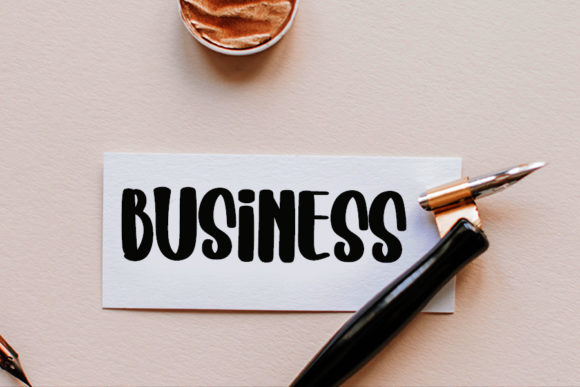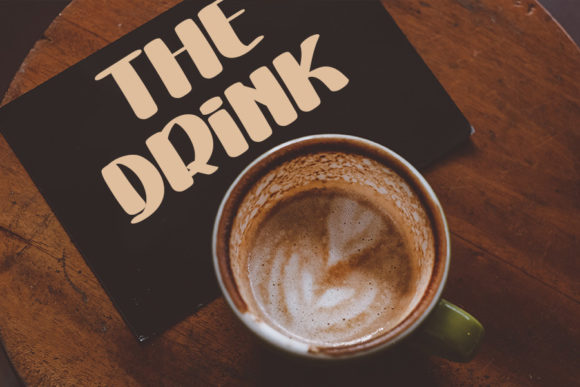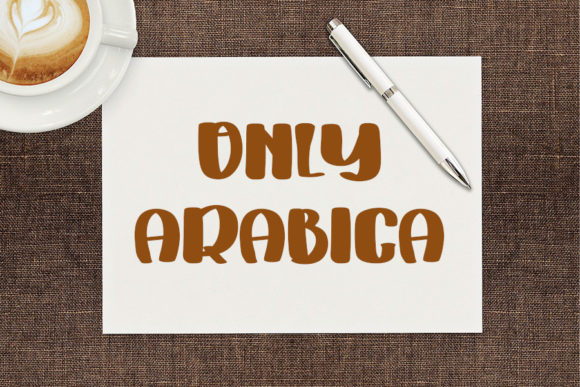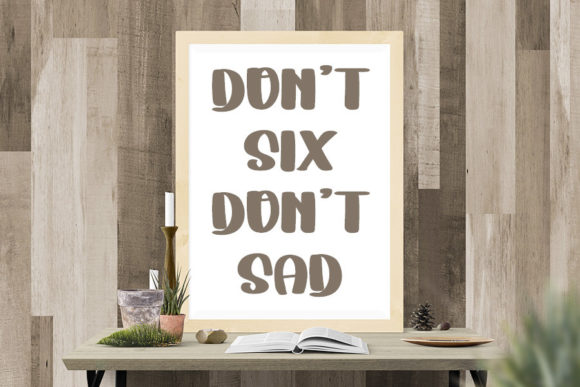
Introducing Daily Love Font: The Perfect Blend of Boldness and Friendliness
Are you a designer, crafter, or digital artist looking for a font that can add a touch of trendiness to your projects? Look no further than Daily Love Font, a bold and friendly display font that’s perfect for a variety of creative applications. In this article, we’ll take a closer look at what makes Daily Love Font so special and how you can use it to elevate your designs.
A Font that’s Full of Character
Daily Love Font is a bold, friendly display font that’s designed to make a statement. Its unique blend of modern and playful elements makes it perfect for adding a touch of personality to your projects. Whether you’re creating a greeting card, crafting a digital design, or working on a presentation, Daily Love Font is the perfect choice.
One of the standout features of Daily Love Font is its perfect balance of boldness and friendliness. It’s not too overpowering, but it’s still attention-grabbing enough to make your designs stand out. Plus, its clean lines and simple shapes make it easy to read and understand, even at smaller sizes.
Perfect for a Variety of Creative Applications
So, what can you use Daily Love Font for? The possibilities are endless! Here are just a few ideas to get you started:
- Crafting: Use Daily Love Font to add a personal touch to your handmade crafts, such as scrapbooking, card making, and journaling.
- Digital Designing: Add a bold and playful touch to your digital designs, such as social media graphics, blog posts, and website headers.
- Presentations: Make your presentations more engaging and memorable with Daily Love Font’s bold and friendly style.
- Greeting Cards: Create beautiful and personalized greeting cards for special occasions, such as birthdays, weddings, and holidays.
Why Choose Daily Love Font?
So, why should you choose Daily Love Font for your next project? Here are just a few reasons:
- Trendiness: Daily Love Font has a modern and trendy feel that’s perfect for designers and crafters who want to stay on top of the latest design trends.
- Versatility: Daily Love Font can be used for a wide range of creative applications, from crafting and digital designing to presentations and greeting cards.
- Easy to Read: Despite its bold style, Daily Love Font is easy to read and understand, even at smaller sizes.
- Unique: Daily Love Font has a unique and distinctive style that will help your designs stand out from the crowd.
Tips for Using Daily Love Font
Here are a few tips for getting the most out of Daily Love Font:
- Experiment with Different Sizes: Daily Love Font looks great at a variety of sizes, from small and subtle to large and bold.
- Pair it with Other Fonts: Try pairing Daily Love Font with other fonts to create a unique and interesting contrast.
- Use it for Headlines: Daily Love Font is perfect for headlines and titles, where its bold and friendly style can really shine.
- Add a Personal Touch: Use Daily Love Font to add a personal touch to your designs, such as in a quote or a message.
In conclusion, Daily Love Font is a bold, friendly display font that’s perfect for designers, crafters, and digital artists who want to add a touch of trendiness to their projects. Its unique blend of modern and playful elements makes it perfect for a variety of creative applications, from crafting and digital designing to presentations and greeting cards. With its versatility, ease of use, and distinctive style, Daily Love Font is a great addition to any designer’s or crafter’s toolkit.